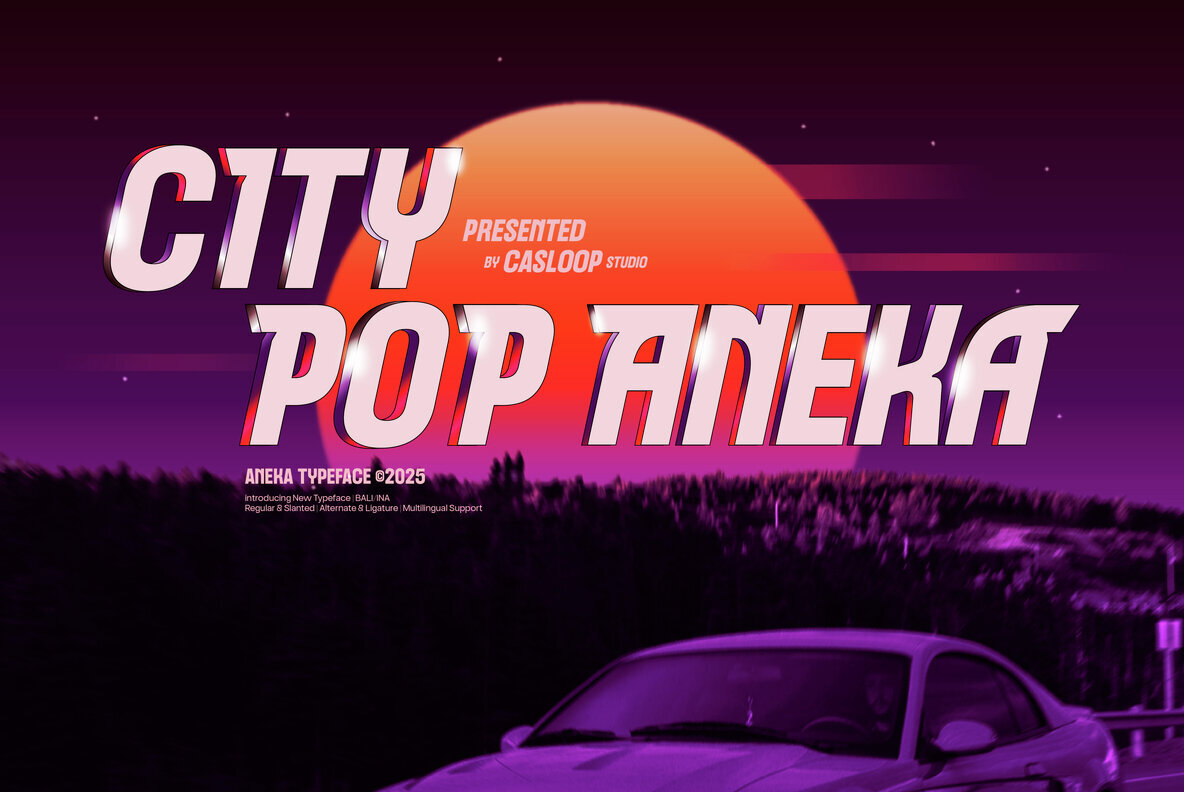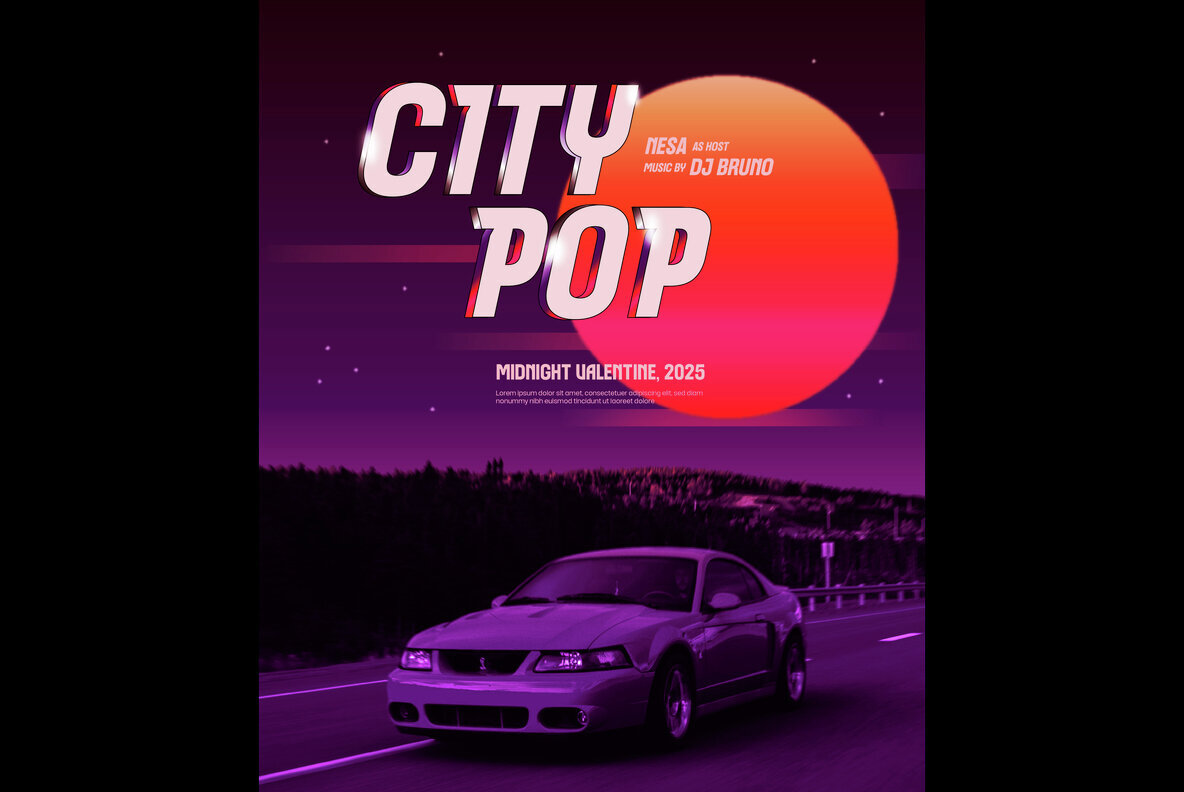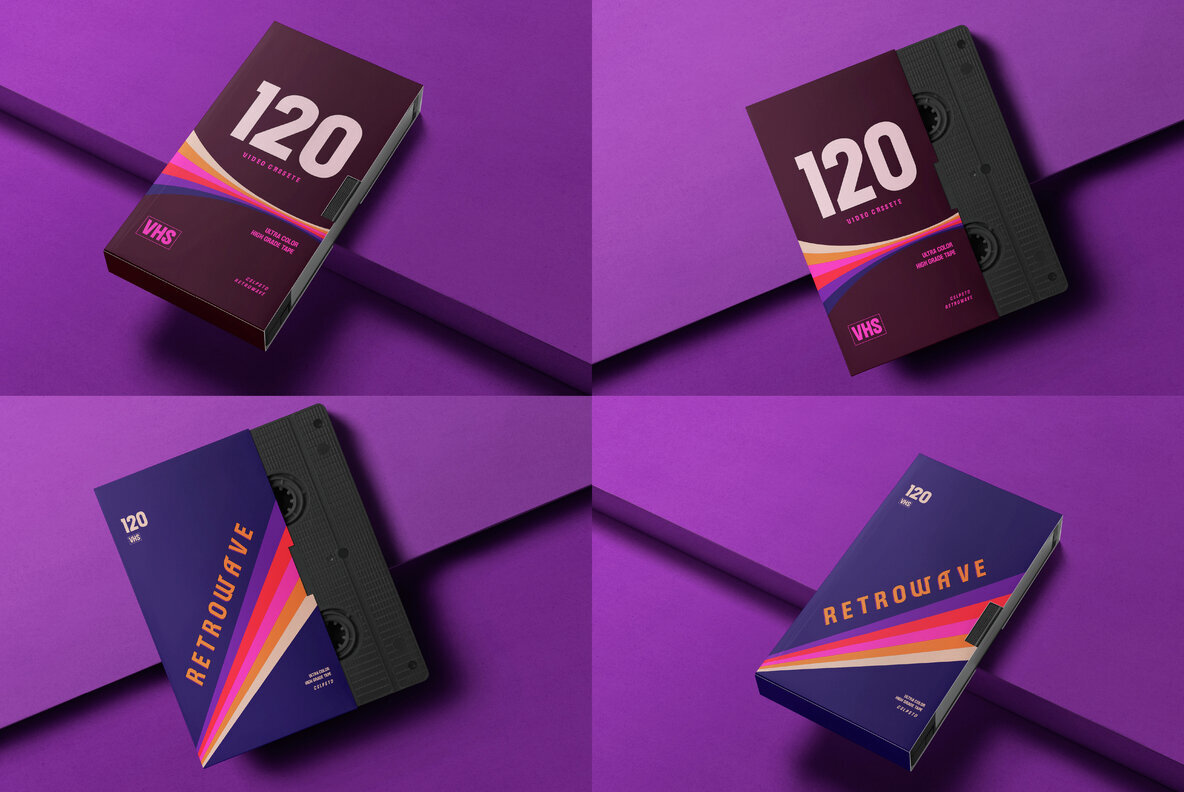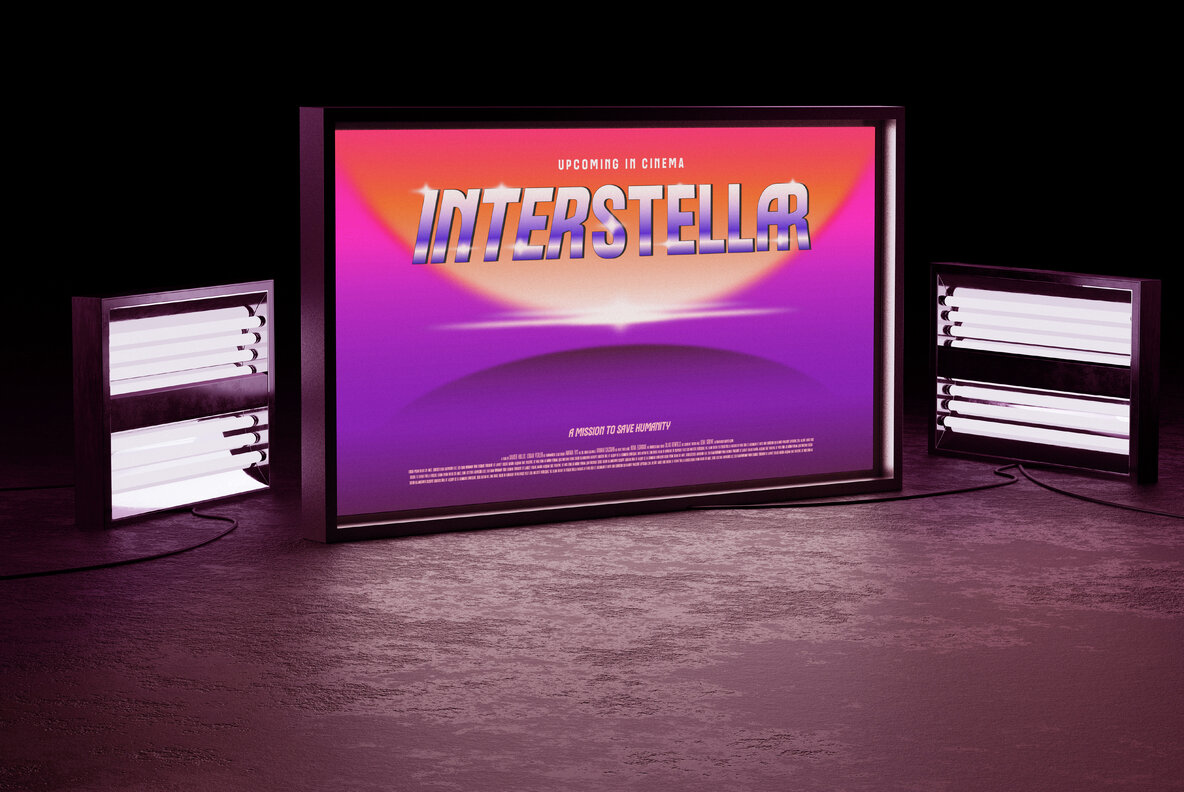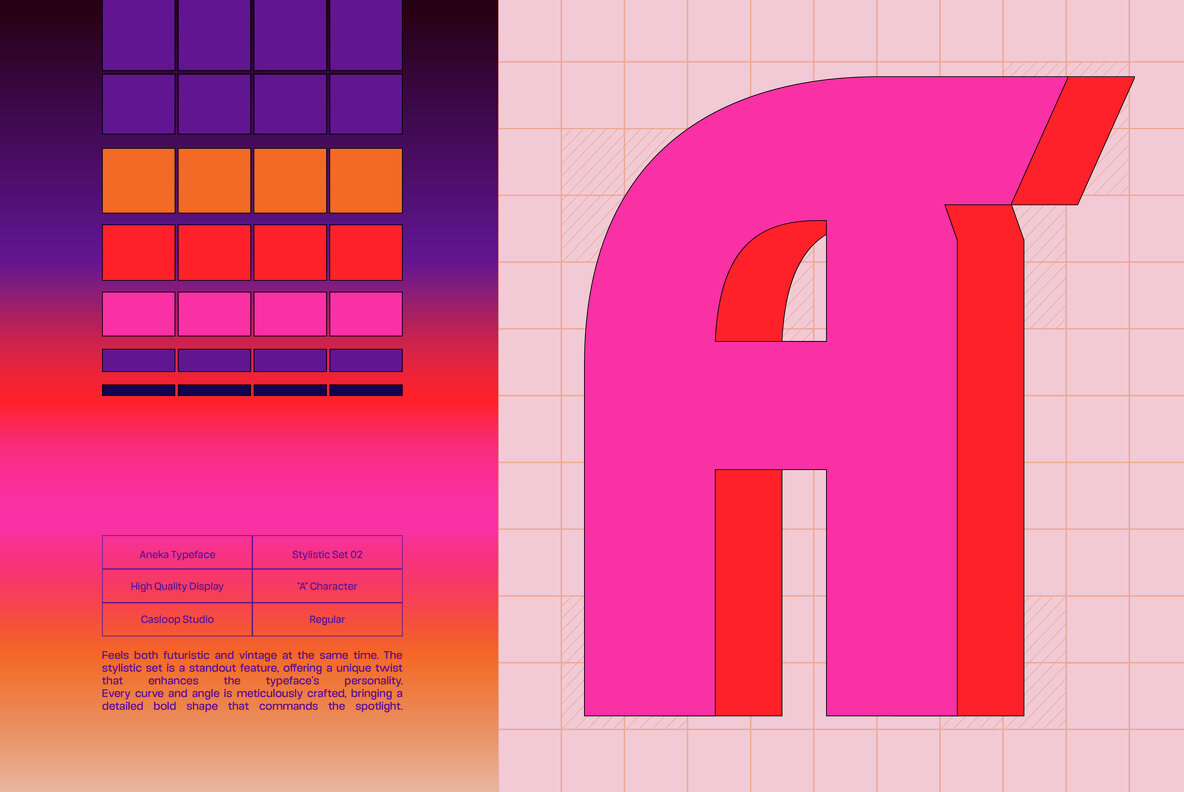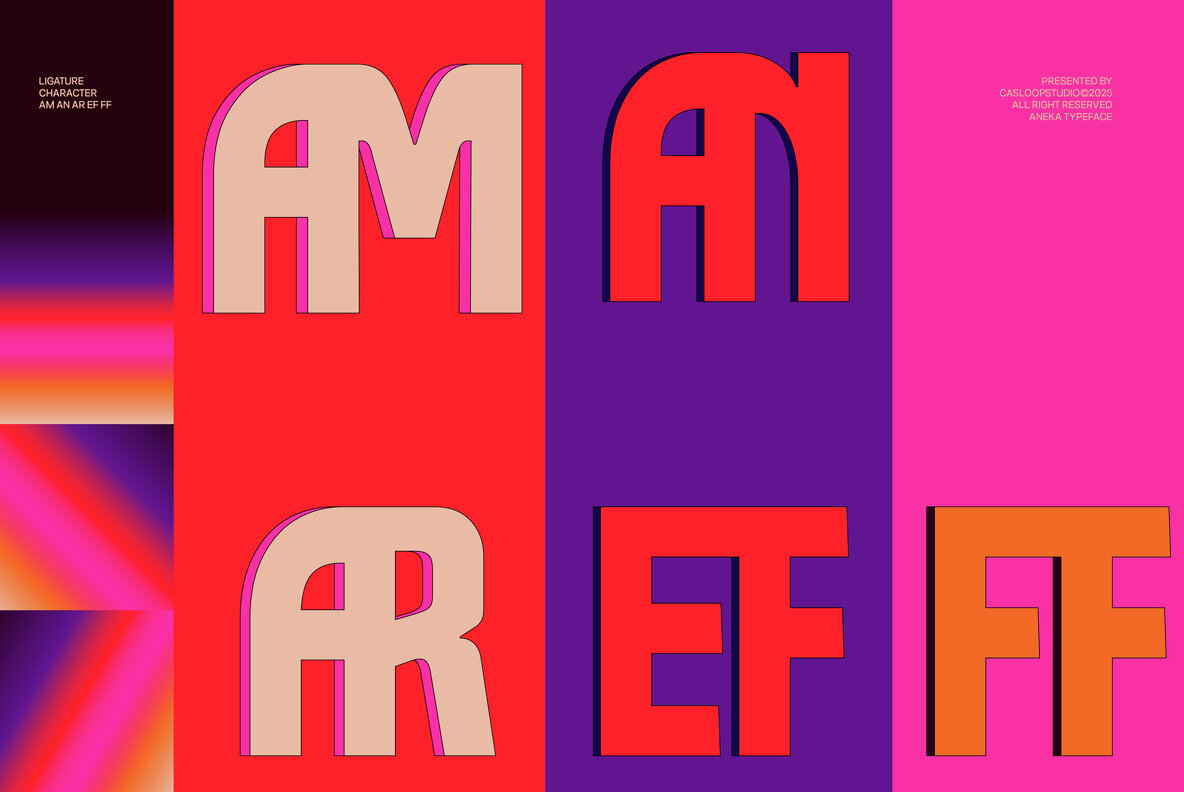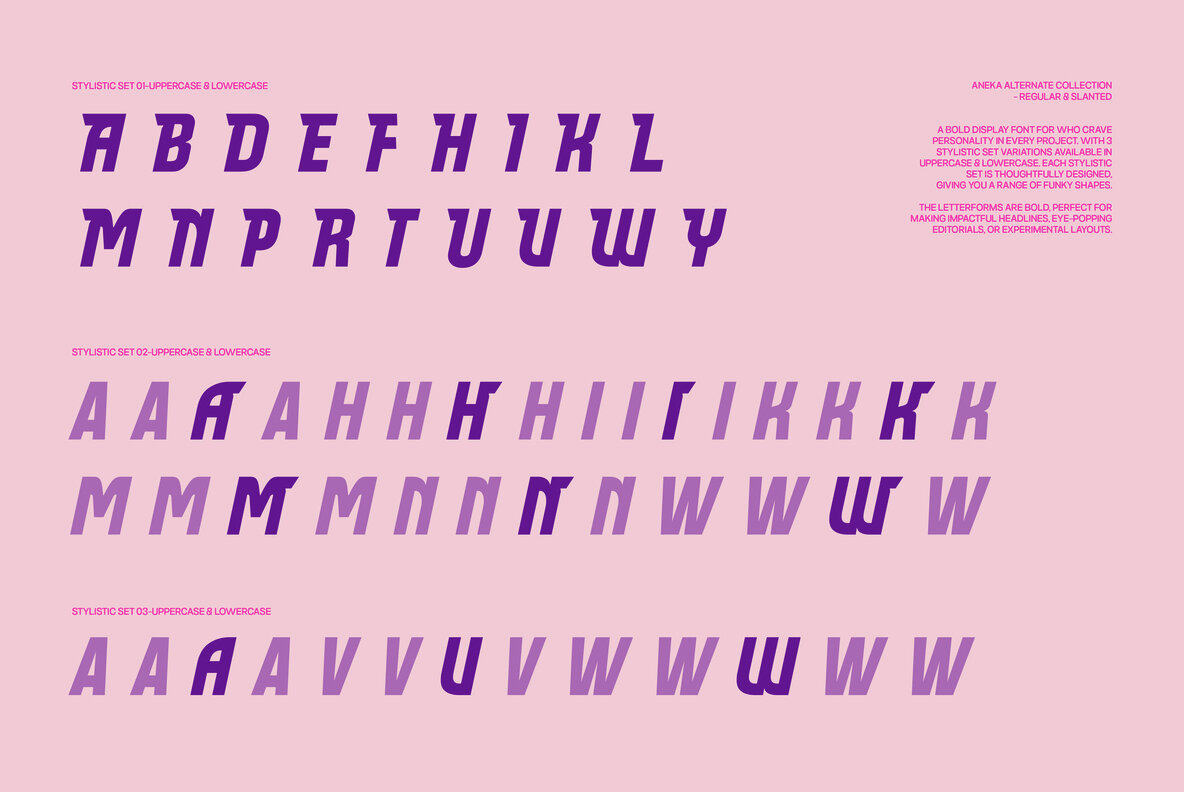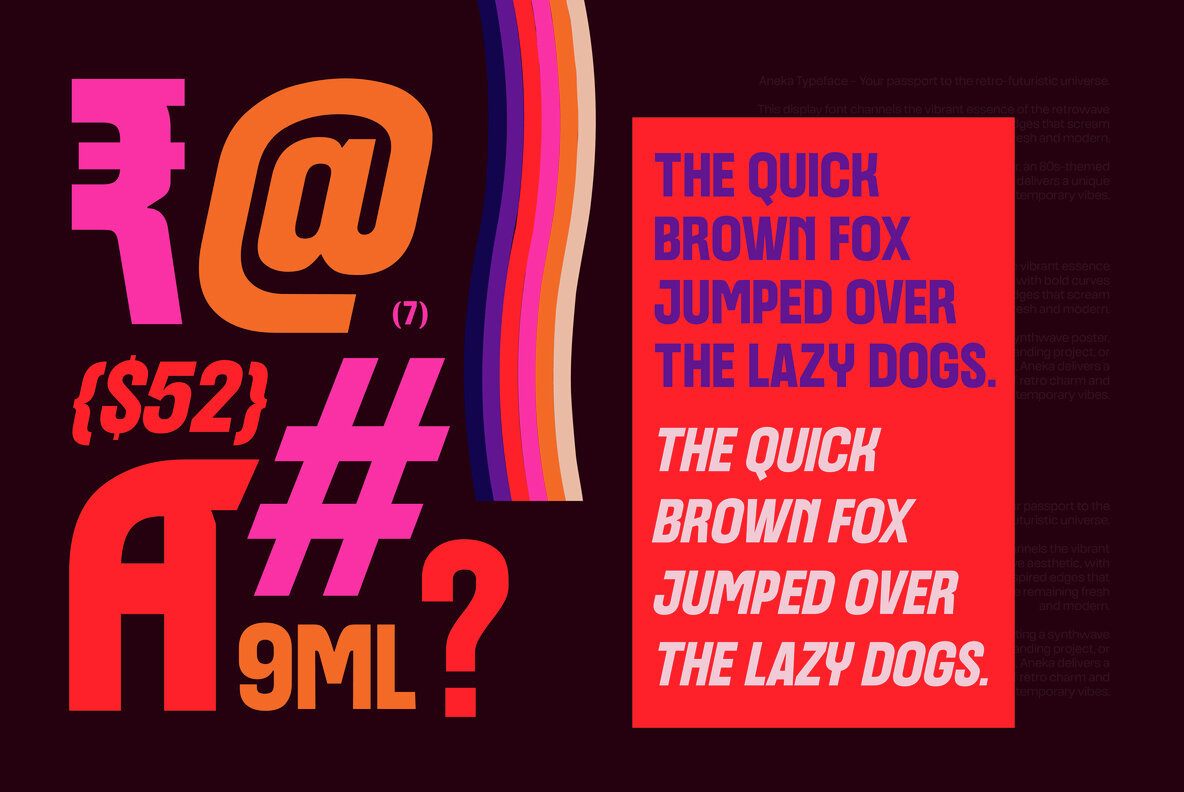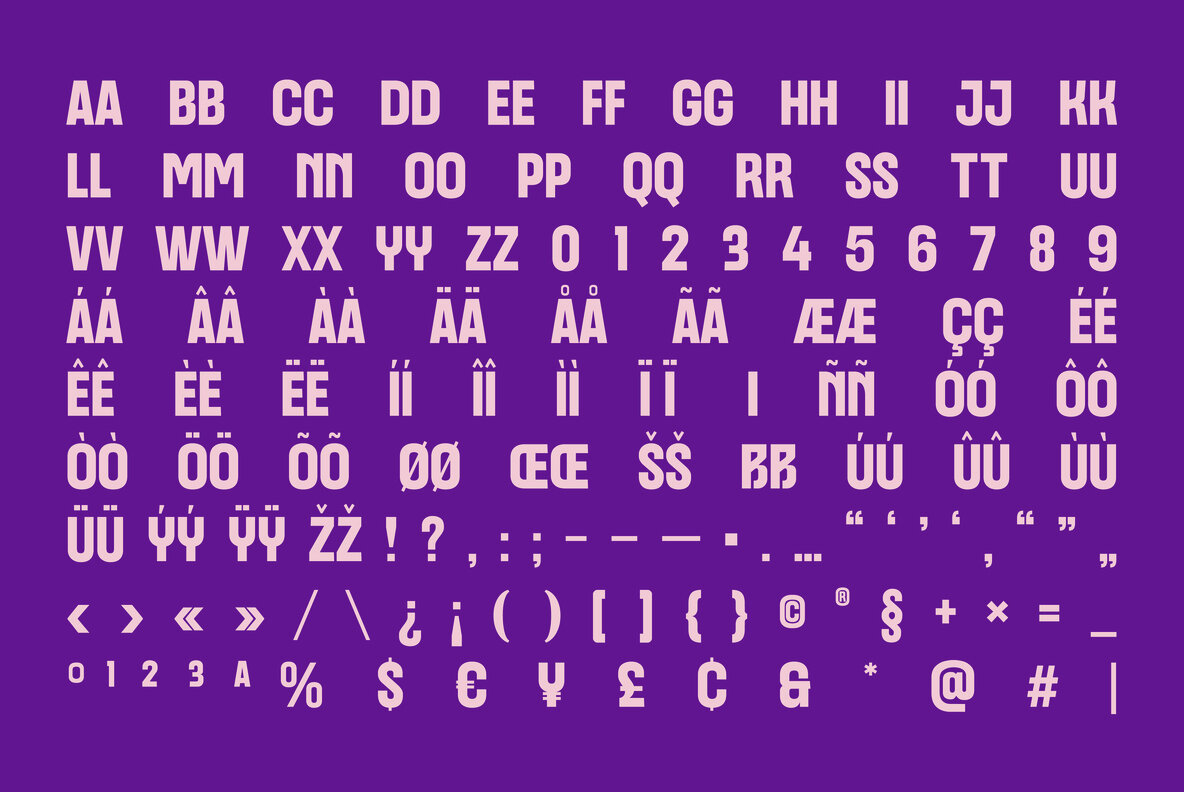
Aneka Font
Aneka Regular
Aneka Slanted
Aneka is a striking display typeface designed by Casloop Studio, offering a blend of retro-futuristic aesthetics perfect for those daring to make a bold statement. With its combination of robust geometric shapes and modern flair, it transforms projects into vibrant, attention-grabbing masterpieces. If you're a creator who enjoys pushing creative boundaries, Aneka is your go-to typeface for injecting personality and impact into every project, whether reviving vintage visuals or adding a futuristic twist. This versatile, vibrant typeface beckons you to explore creativity beyond the ordinary.Aneka Typeface
Standout Features